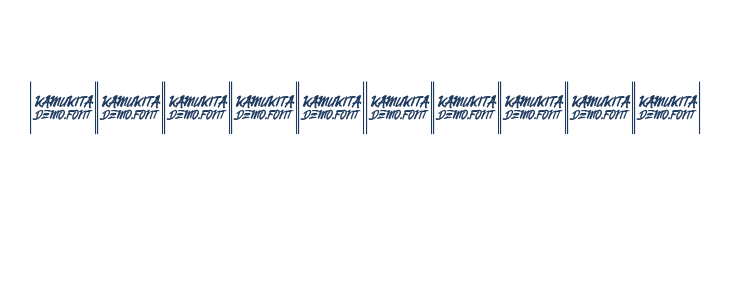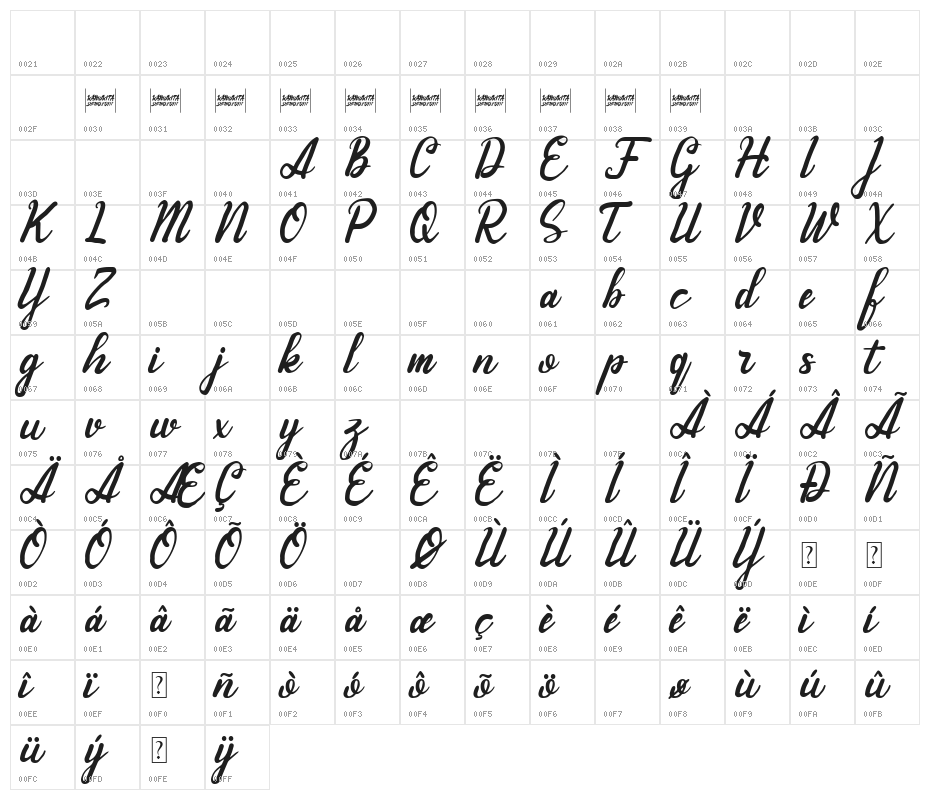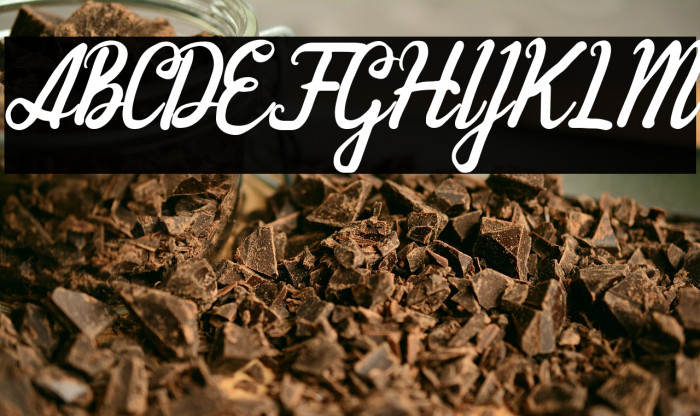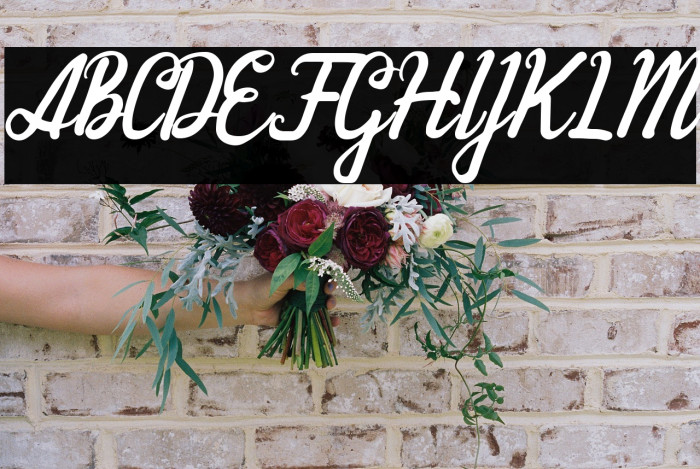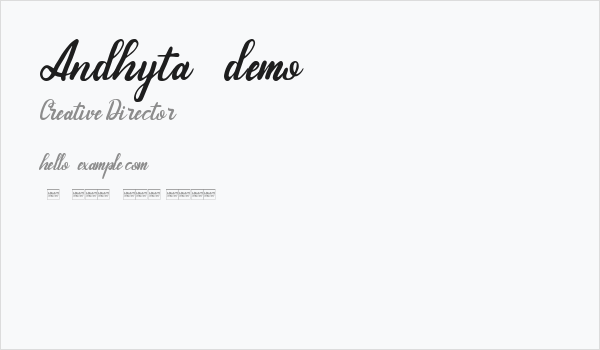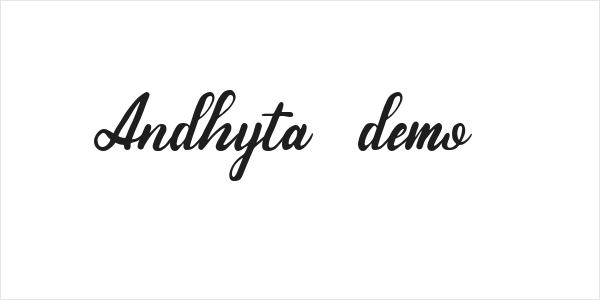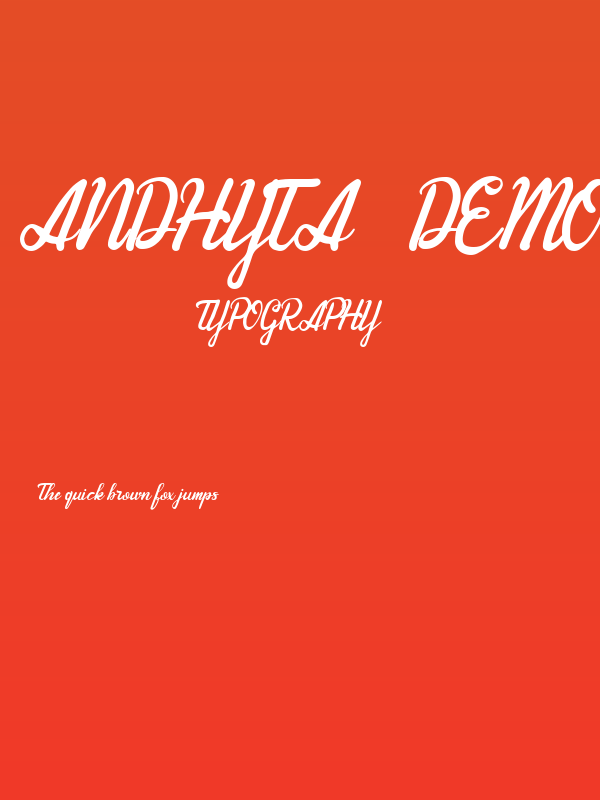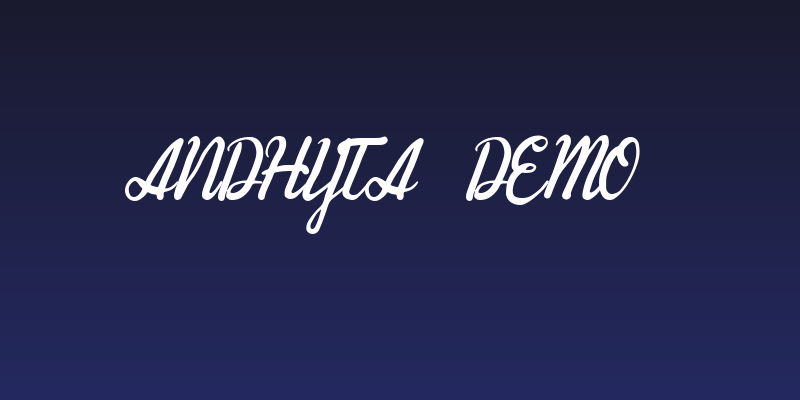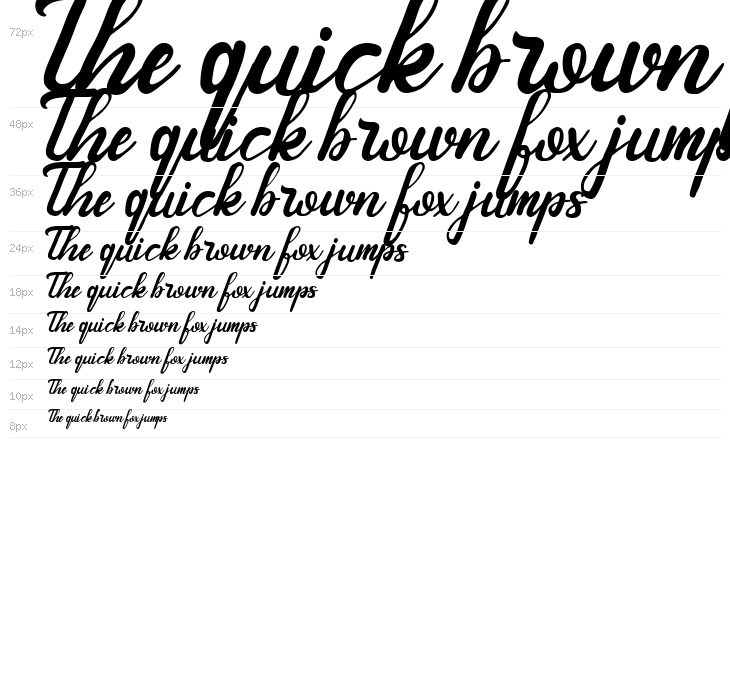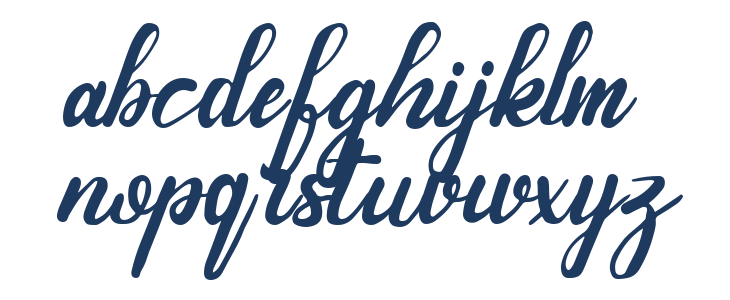
Andhyta (demo) Font
Andhyta (demo) Description
This font exhibits a flowing, cursive style with a bold and elegant appearance. The uppercase letters are characterized by their sweeping curves and loops, giving a sense of movement and grace. The lowercase letters maintain a consistent style, with smooth connections between each character, enhancing the script's fluidity. The numbers and special characters are designed to match the overall aesthetic, ensuring a cohesive look across all elements. This font's boldness adds a striking presence, making it suitable for attention-grabbing designs.
| Overall Style | Elegant, Decorative |
| Proposed Projects | Ideal for wedding invitations, branding, logos, and elegant packaging designs. |